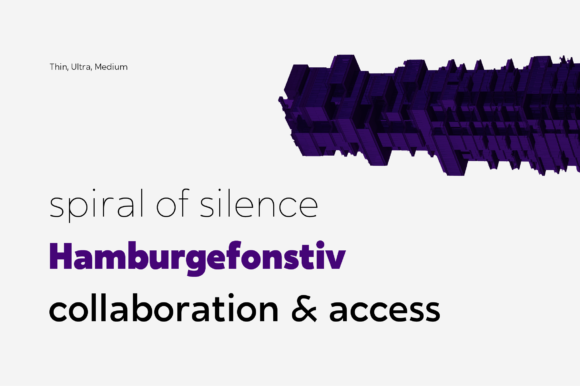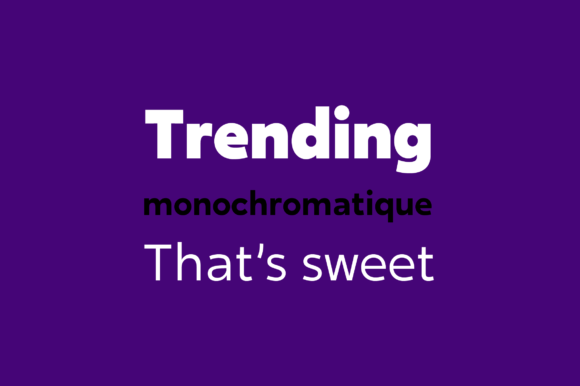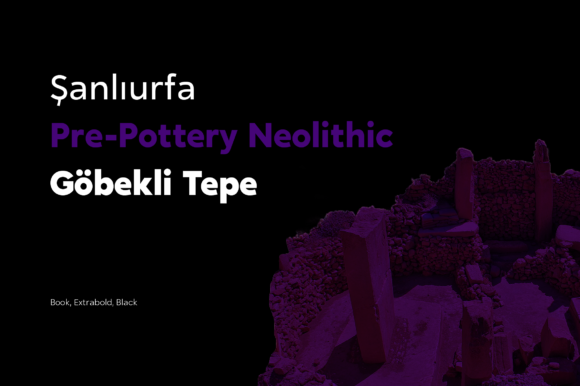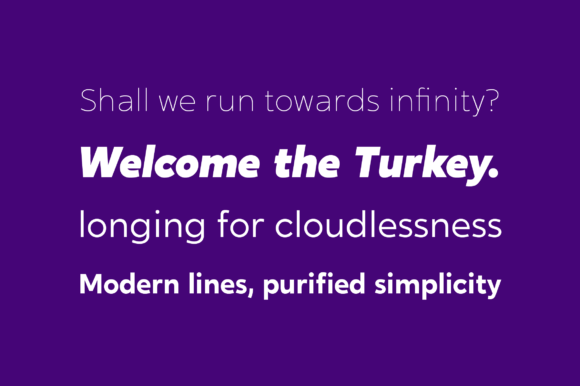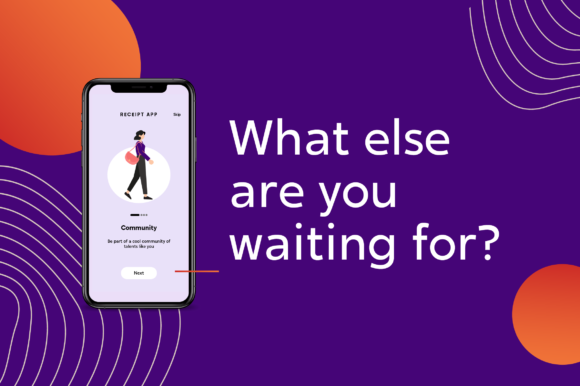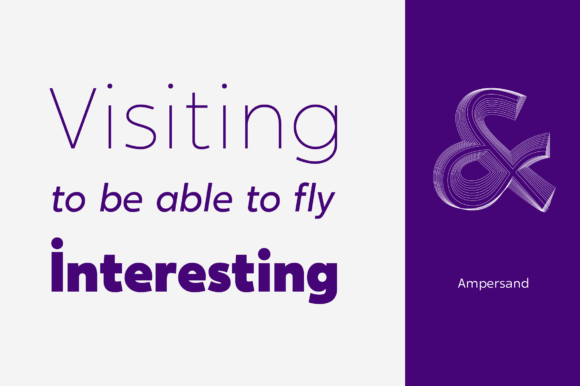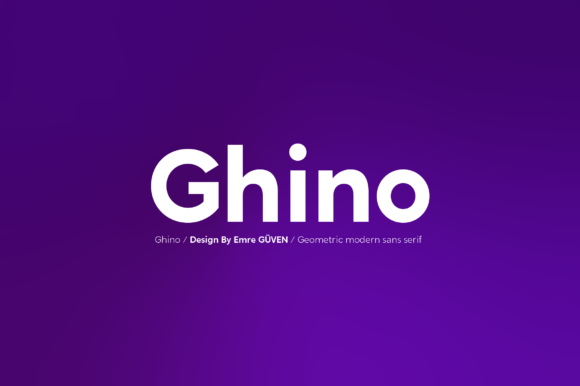
Ghino Font: Elevate Your Designs with a Modern and Neat Sans Serif
Are you on the hunt for a font that can effortlessly elevate your creative projects? Look no further than Ghino Font, a modern and neat sans serif font designed to make your designs stand out. With its clean lines and versatile style, Ghino is the perfect addition to any designer’s toolkit.
The Characteristics of Ghino Font
Ghino Font is a sans serif font, which means it doesn’t have the small lines or flourishes that are commonly found at the ends of letters in serif fonts. This gives Ghino a clean and modern look that’s perfect for designs that need to feel fresh and contemporary. The font is also highly legible, making it suitable for use in a wide range of applications, from digital screens to print materials.
Why Choose Ghino Font?
So why should you choose Ghino Font for your next project? Here are just a few reasons:
- Versatility: Ghino Font is incredibly versatile, and can be used in a wide range of projects, from logos and branding to websites and social media graphics.
- Legibility: The font is highly legible, even at small sizes, making it perfect for use in digital applications where readability is key.
- Modern Style: Ghino Font has a distinctly modern feel, making it perfect for designs that need to feel fresh and contemporary.
- Ease of Use: The font is easy to use and can be easily paired with other fonts to create a unique and cohesive look.
How to Use Ghino Font in Your Designs
So how can you use Ghino Font in your designs? Here are a few ideas to get you started:
- Logos and Branding: Use Ghino Font to create a modern and memorable logo that will help your brand stand out.
- Websites: Ghino Font is perfect for use in website designs, particularly for headings and titles.
- Social Media Graphics: Use Ghino Font to create eye-catching social media graphics that will help your brand stand out.
- Print Materials: Ghino Font is also suitable for use in print materials, such as brochures, flyers, and business cards.
Tips for Pairing Ghino Font with Other Fonts
One of the best things about Ghino Font is its ease of use with other fonts. Here are a few tips for pairing Ghino with other fonts:
- Pair with a Serif Font: Pairing Ghino with a serif font can create a nice contrast and add visual interest to your design.
- Use with a Script Font: Ghino Font also pairs well with script fonts, which can add a touch of elegance and sophistication to your design.
- Experiment with Different Weights: Don’t be afraid to experiment with different weights of Ghino Font to create a unique and cohesive look.
In conclusion, Ghino Font is a modern and neat sans serif font that’s perfect for designers and crafters looking to elevate their creative projects. With its clean lines, versatility, and ease of use, Ghino is a font that’s sure to become a staple in any designer’s toolkit. So why not give Ghino Font a try and see how it can help take your designs to the next level?